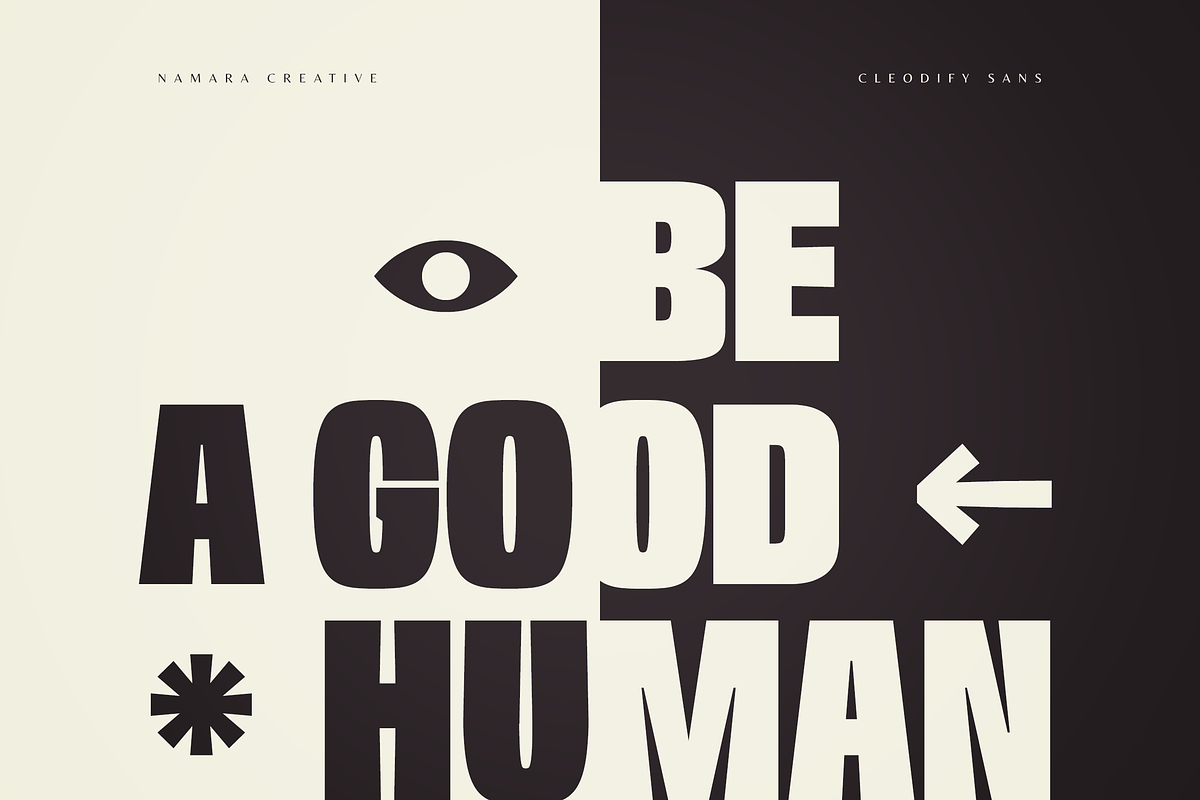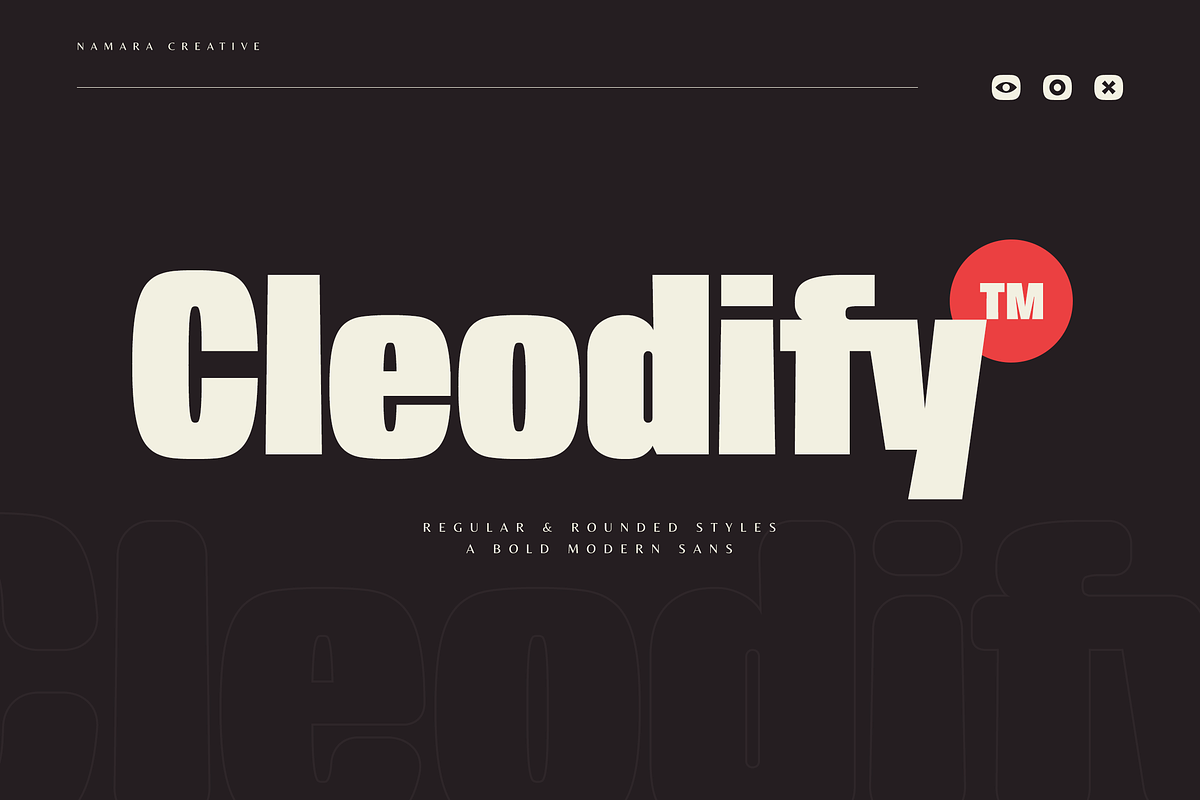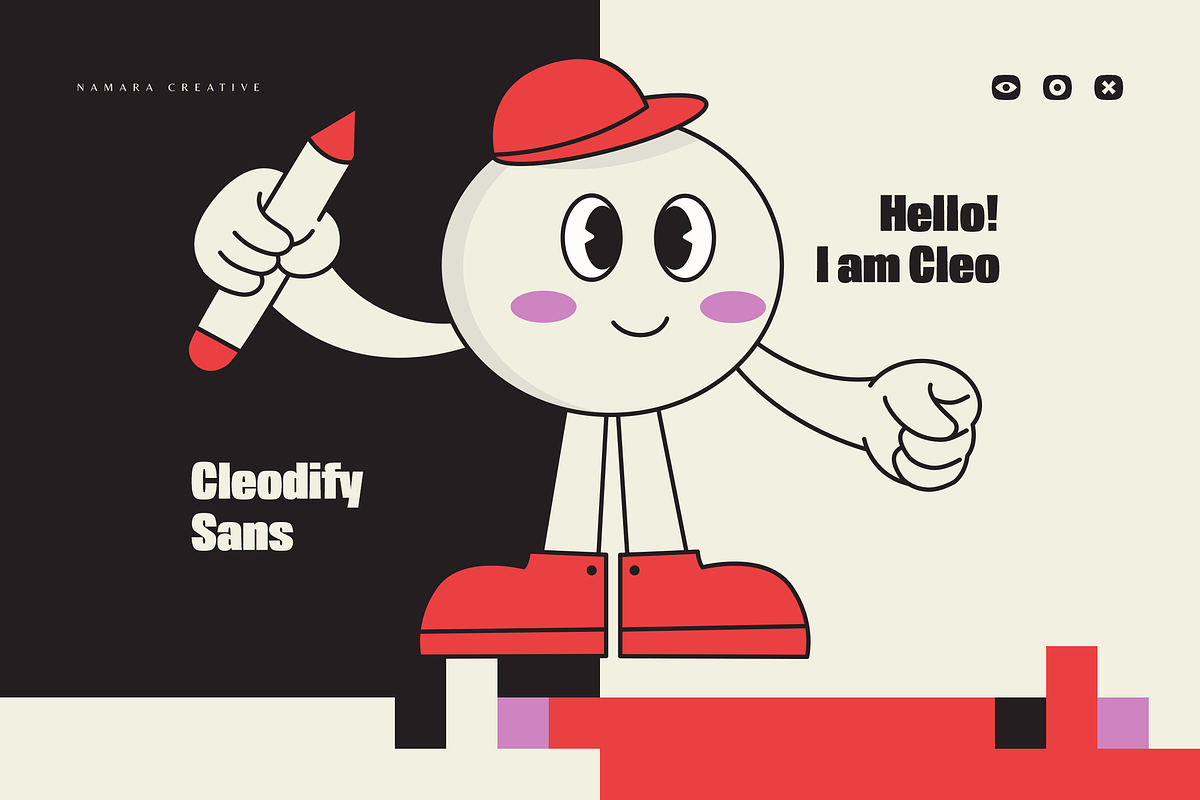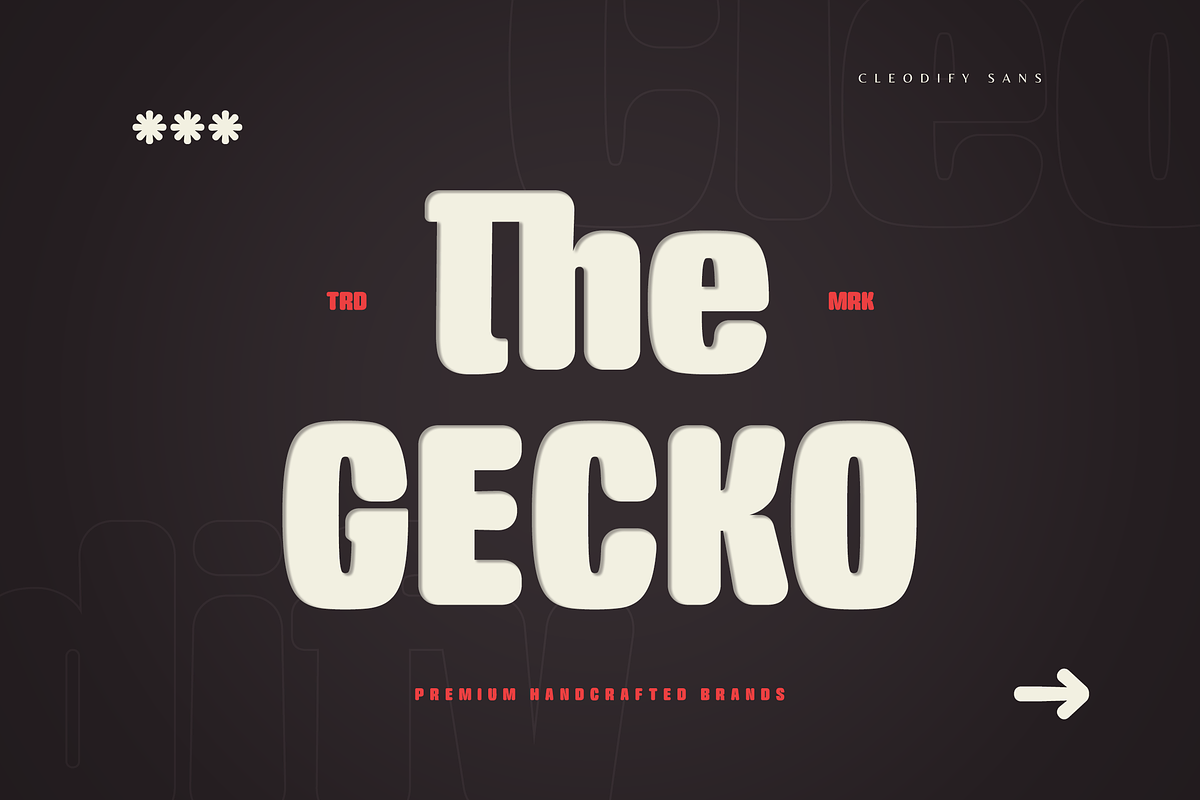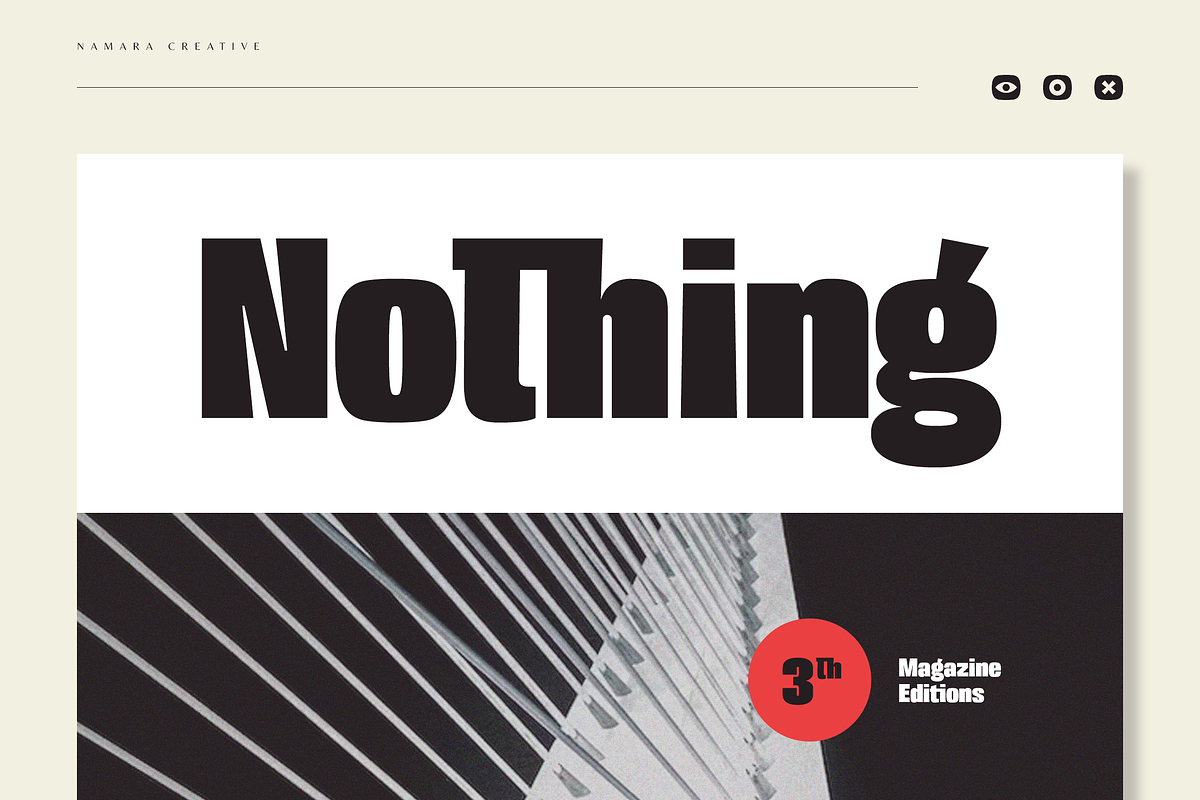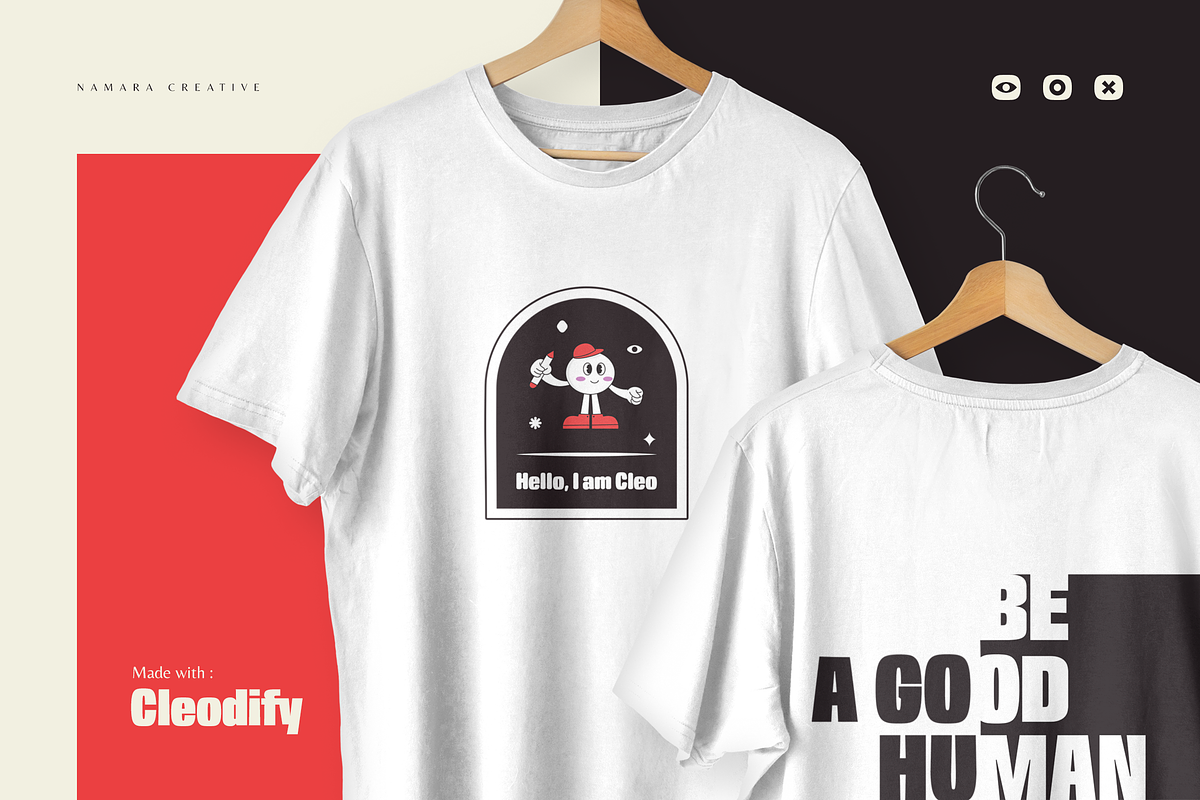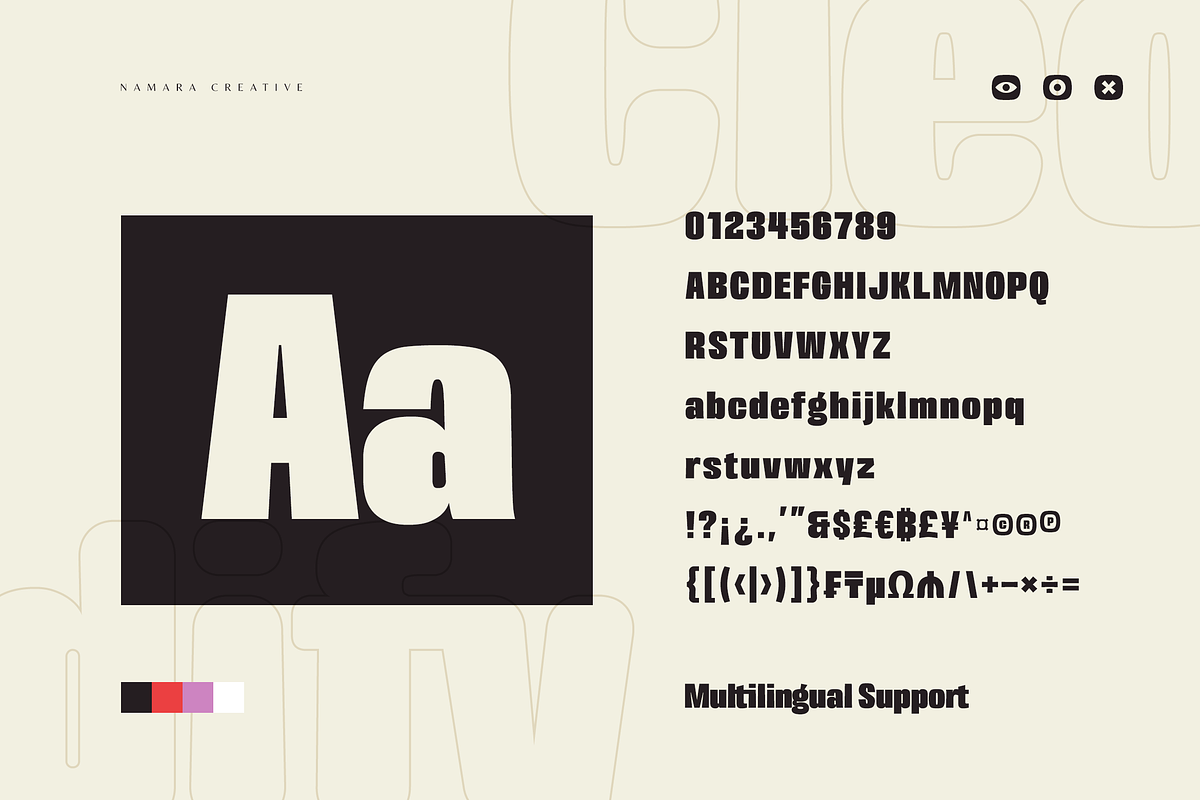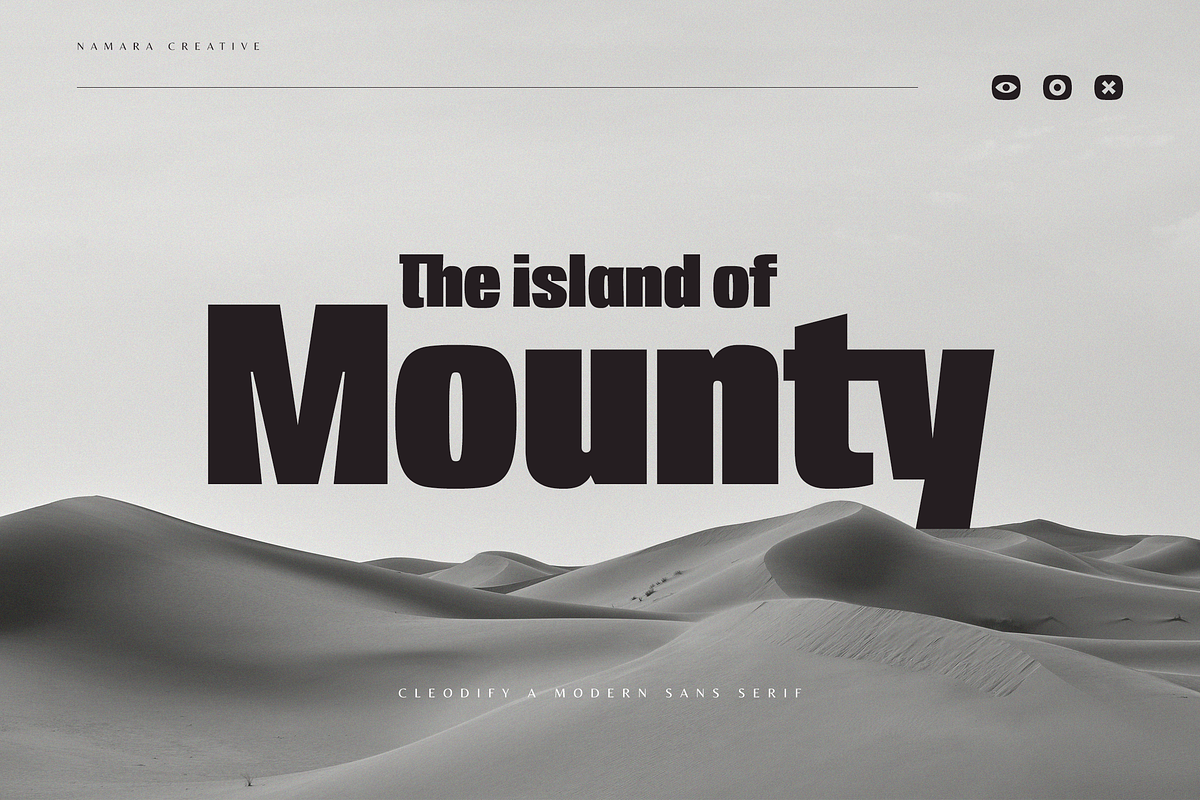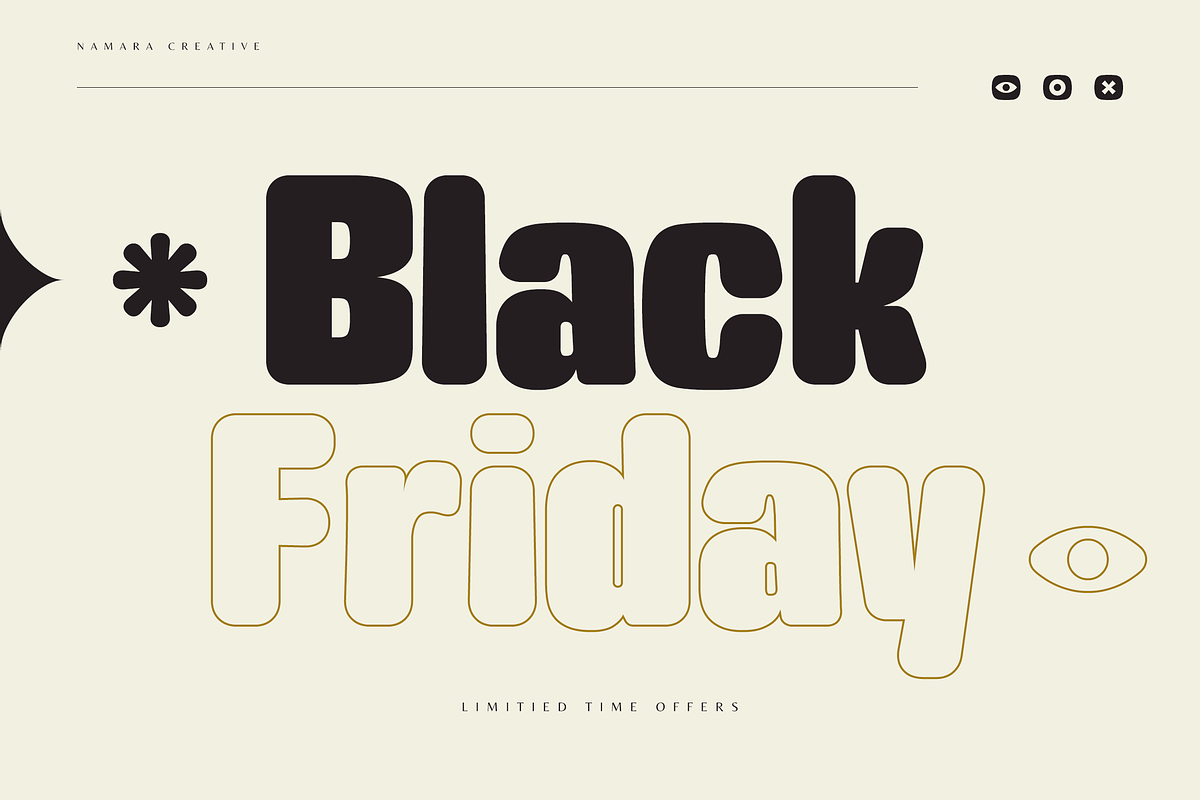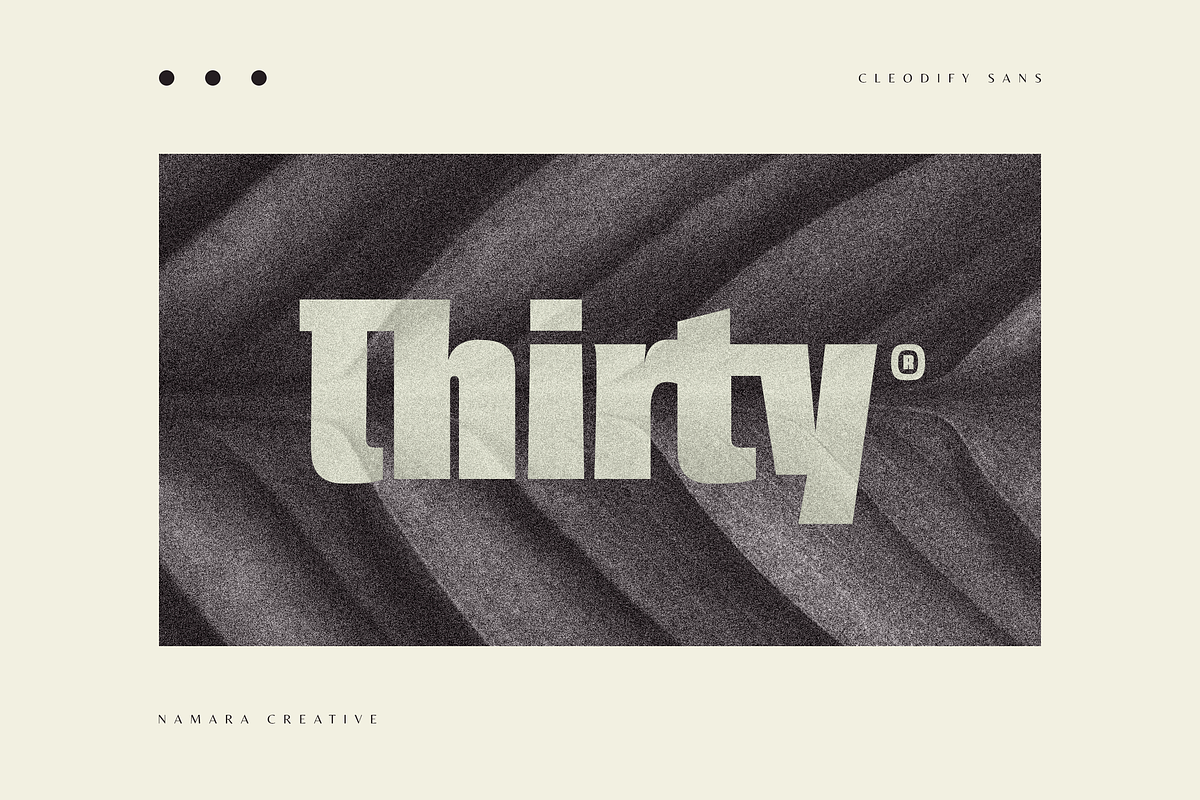
Cleodify - Bold Modern Sans
Inspired by bold & retro typefaces in the ’90s, Cleodify comes with a retro-ish style. The bold design combined with classical proportions gives a choice for creative work. Cleodify Sans is available in two style : Regular and Rounded.
- Full Set of standard characters and punctuations.
- Alternates, ligatures and multilingual support characters.